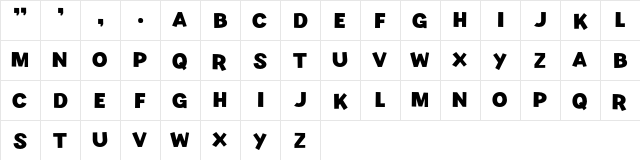
Kiwi Regular
| Foundry | SparkyType |
| Designer | David Buck |
Design Context for Kiwi Typeface
Kiwi offers clean, dependable letterforms without strong stylistic allegiance, making it a practical choice for designers who need flexibility.